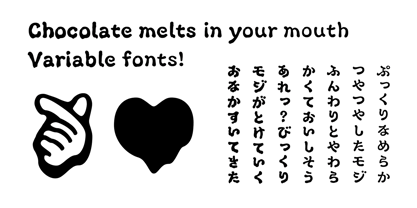
ML Chocolate VF
This kana font is shaped as if drawn with a chocolate pen. The font has three weights: Regular, SemiMelt, and the letters become thicker as the chocolate melts. You can transform seamlessly between melting and unmelting when you use this VariableFont, and doing this will express your work dynamically.
A type foundry established in 2021 by type designer Ayumi Kiryu. Notable projects include the Japanese corporate typeface YouTube Sans Japanese for YouTube, and the kana design for Gyomincho, a Japanese typeface created in collaboration with Taiwanese foundry justfont and designer Bohan Shih. Original releases include Tokatsuki, Chocolate, among others. Biography Japan Typography Annual Awards Type design 2023 Best Work Tokyo TDC Annual Awards 2023 Selected Awards D&AD 2025 Type design Shortlist